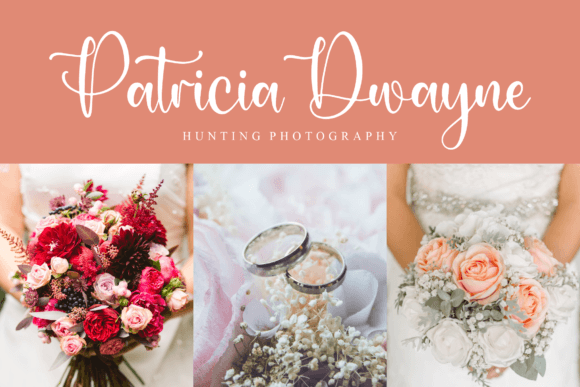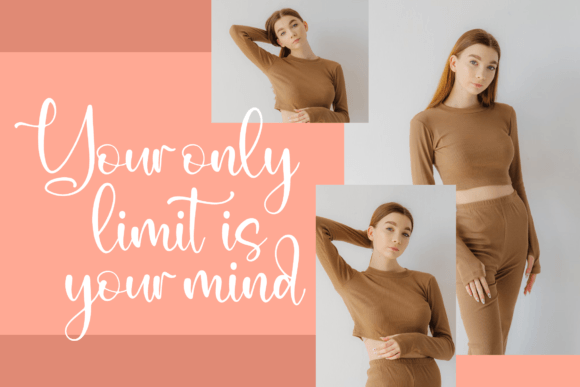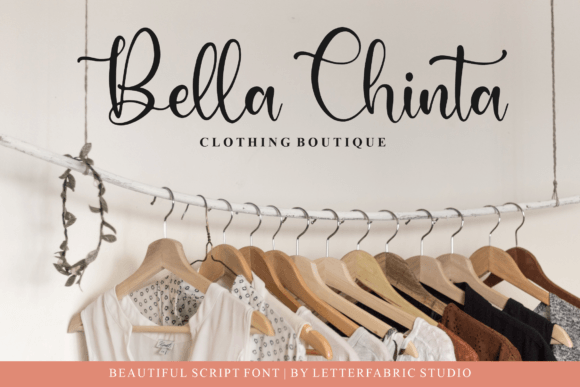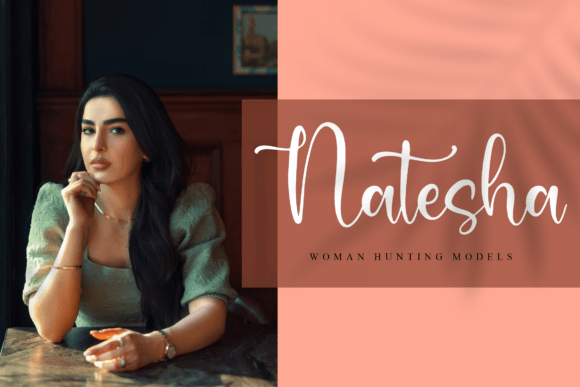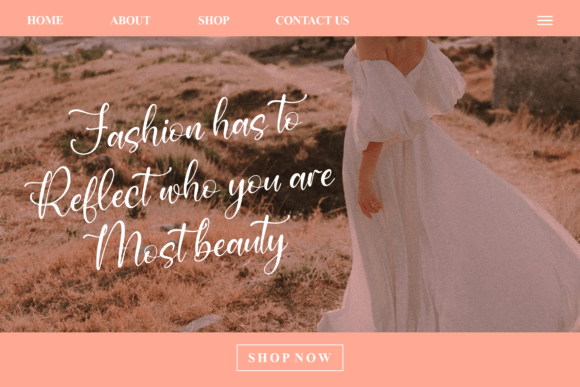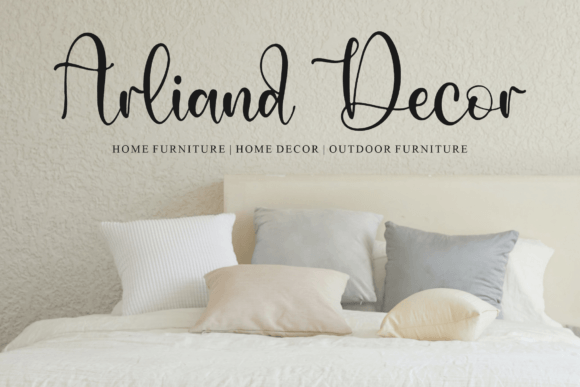
Introducing Butterlise Font: Elevate Your Designs with Elegance
Are you a designer or crafter looking for a beautiful script font to add a touch of elegance to your projects? Look no further than Butterlise Font. This stunning script font is perfect for a wide range of applications, from logos and branding projects to homeware designs, product packaging, and more.
What is Butterlise Font?
Butterlise Font is a beautiful script font designed to add a touch of sophistication and elegance to any project. Its flowing lines and delicate curves make it perfect for designs that require a high level of refinement. Whether you’re working on a logo, brochure, or packaging design, Butterlise Font is sure to impress.
Features of Butterlise Font
- Beautiful Script Style: Butterlise Font features a stunning script style that is perfect for designs that require a touch of elegance.
- Highly Versatile: This font is suitable for a wide range of projects, from logos and branding projects to homeware designs, product packaging, and more.
- Easily Readable: Despite its elegant style, Butterlise Font is highly readable, making it perfect for use in body text as well as headings.
Uses for Butterlise Font
Butterlise Font is incredibly versatile, making it perfect for a wide range of projects, including:
- Logos and Branding Projects: Create a stunning logo or brand identity with Butterlise Font.
- Homeware Designs: Add a touch of elegance to your homeware designs, such as stationery, invitations, and more.
- Product Packaging: Elevate your product packaging with Butterlise Font, perfect for food labels, cosmetics, and more.
- Mugs and Drinkware: Create beautiful designs for mugs, water bottles, and other drinkware.
- Apparel and Textiles: Use Butterlise Font to create stunning designs for t-shirts, tote bags, and other textiles.
- Paper Crafts: Add a touch of elegance to your paper crafts, such as greeting cards, invitations, and more.
- Photography and Watermarks: Use Butterlise Font to create beautiful watermarks for your photographs.
Why Choose Butterlise Font?
With so many fonts to choose from, why should you choose Butterlise Font? Here are just a few reasons:
- Unique and Elegant Style: Butterlise Font features a unique and elegant style that will set your designs apart from the rest.
- Highly Versatile: This font is suitable for a wide range of projects, making it a great addition to any designer’s toolkit.
If you’re looking for a beautiful script font to elevate your designs, look no further than Butterlise Font. With its elegant style, versatility, and ease of use, this font is perfect for designers and crafters who want to add a touch of sophistication to their projects. Download Butterlise Font today and start creating stunning designs that will leave a lasting impression.